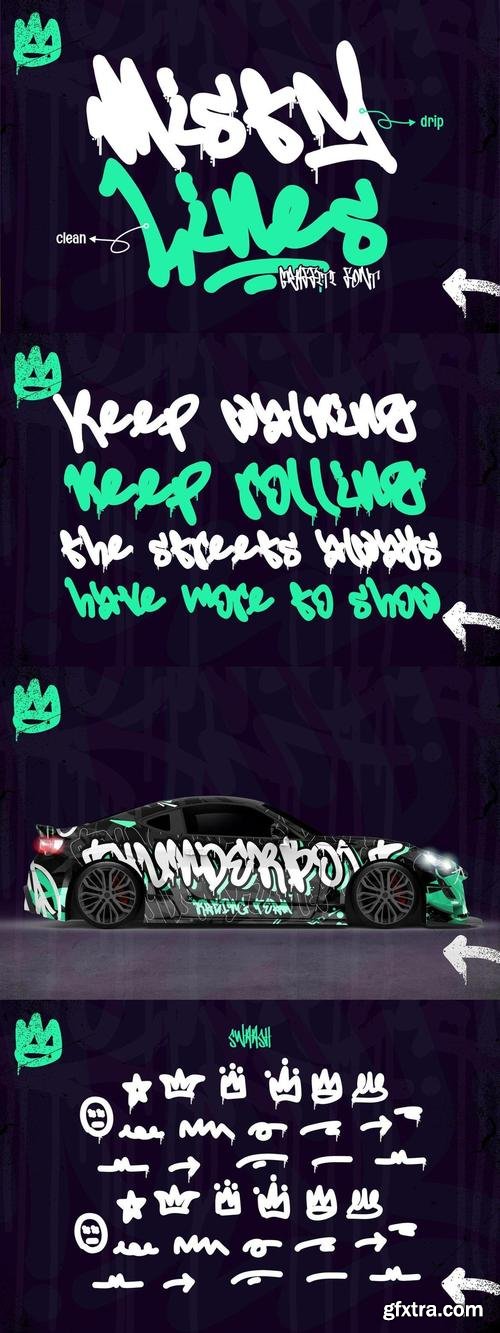
Misty Lines - Urban Graffiti Font
Unleash your creativity with Misty Lines, the perfect blend of clean strokes and edgy drip style! This graffiti-inspired font brings a bold, urban vibe to any design, making it ideal for streetwear, posters, album covers, social media graphics, and more.
Why Choose Misty Lines?
Unique Style: Combines crisp lines with artistic drip effects, delivering a contemporary graffiti look.
Versatile Use: Perfect for logos, apparel, digital art, and branding projects that demand attention.
Full Character Set: Includes uppercase, lowercase, numerals, punctuation, and multilingual support.